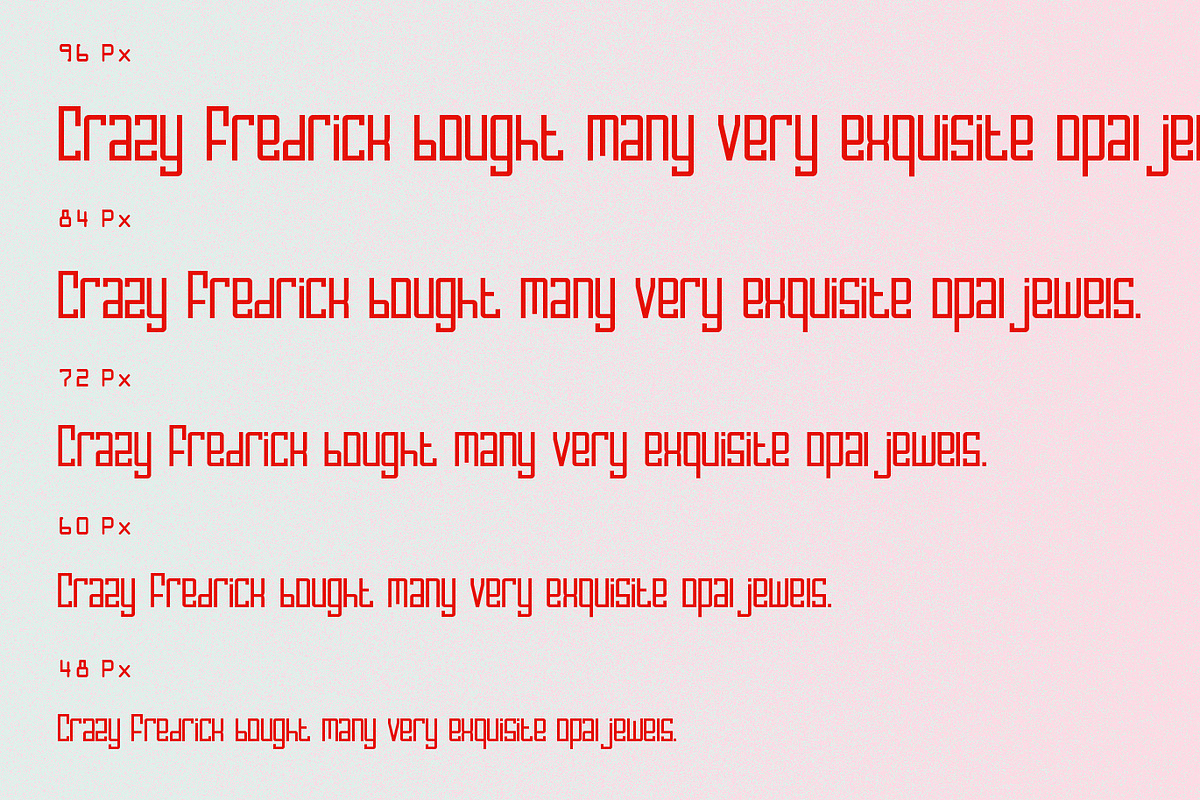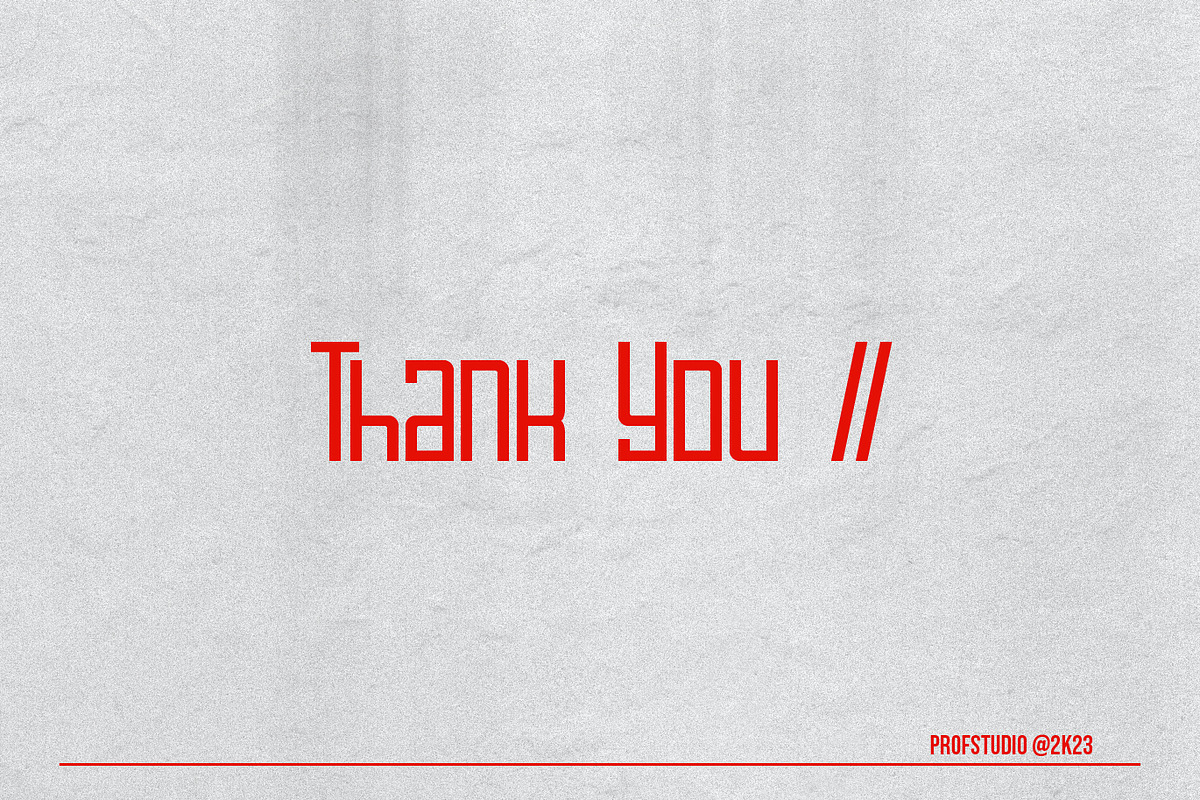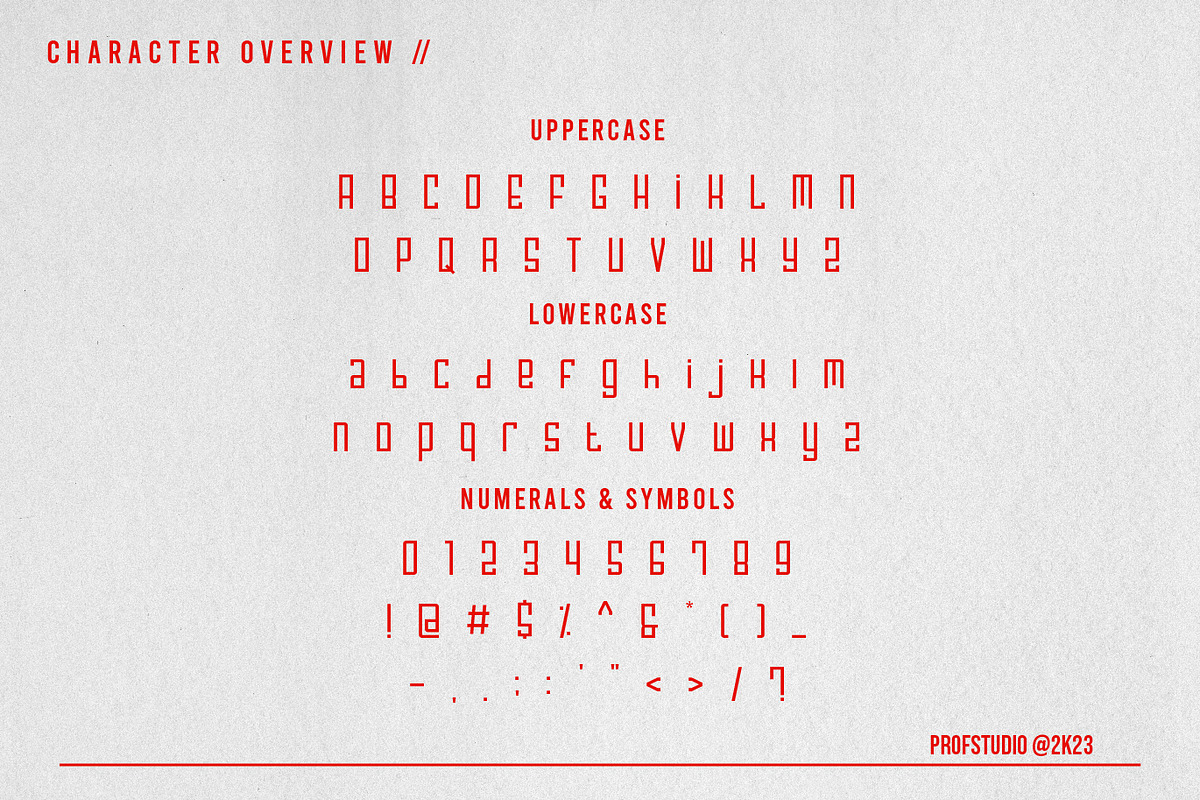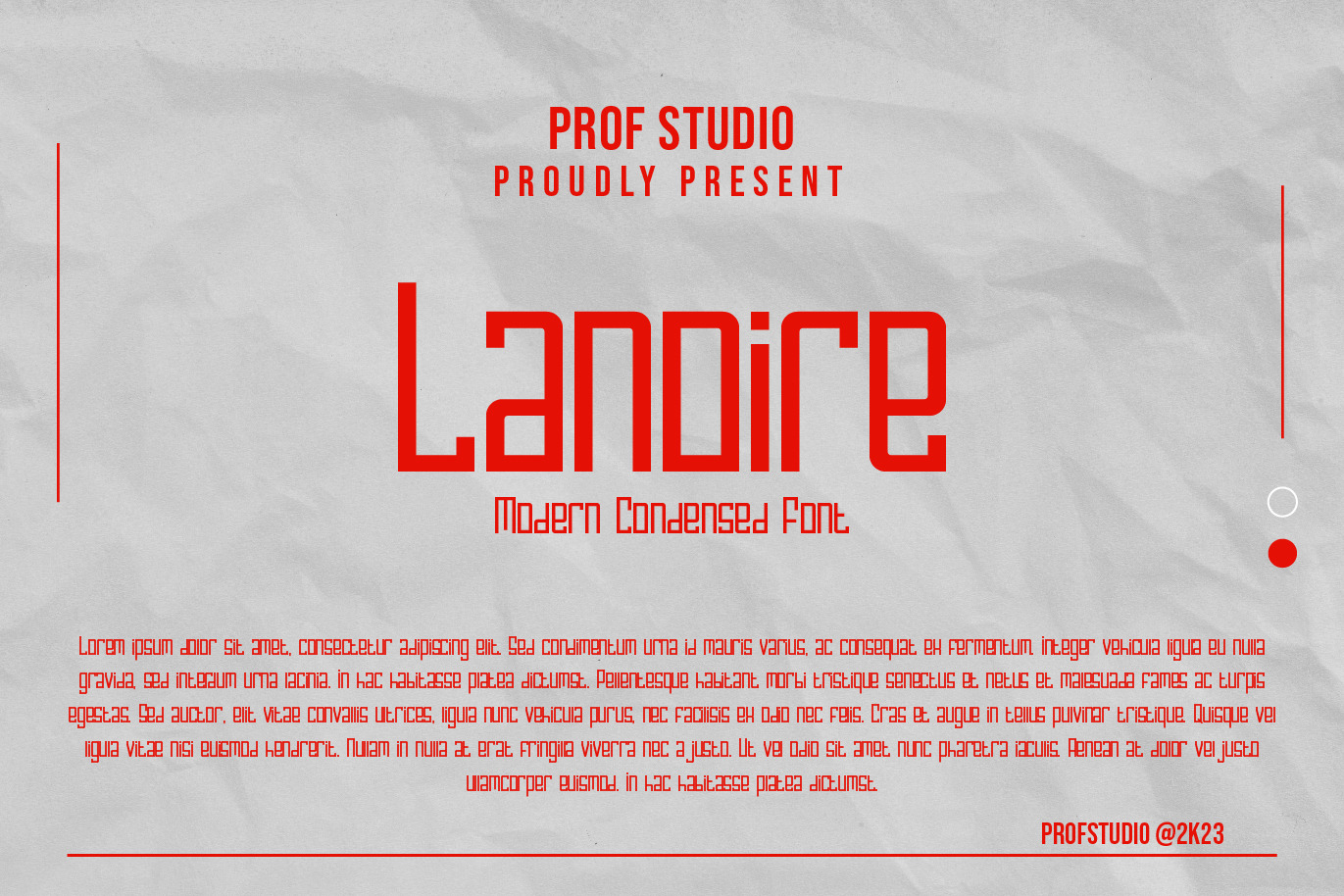
Lanoire - Thin Condensed Font
Hi Ladies and Gentleman ! Proudly present Thin Condensed Font “Lanoire” for your business.
Lanoire - Condensed Font which can be interpreted professional. we keep this font looks Modern, Thin, readable, stylish, catchy and easy to use.
Lanoire - is the great choice for event design ,logo and many other design project. Lanoire here to make your work to high level!!!